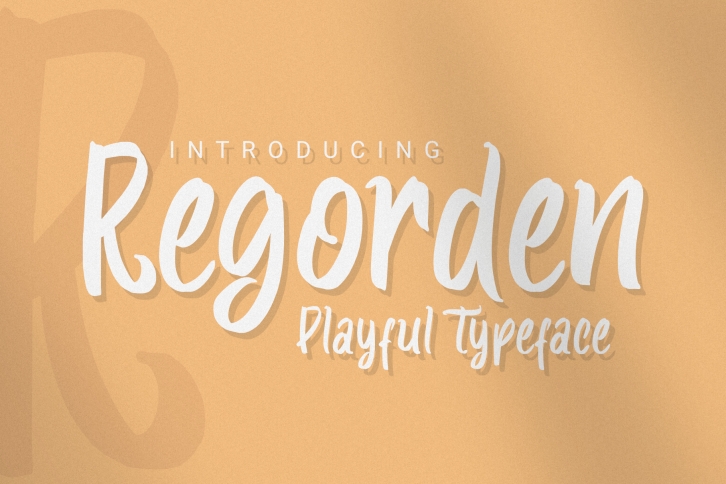
Regorden is a lovely paint brushed script font that exudes playfulness and charm. This font was particularly crafted for those who need a beautiful and refreshing look to their designs.